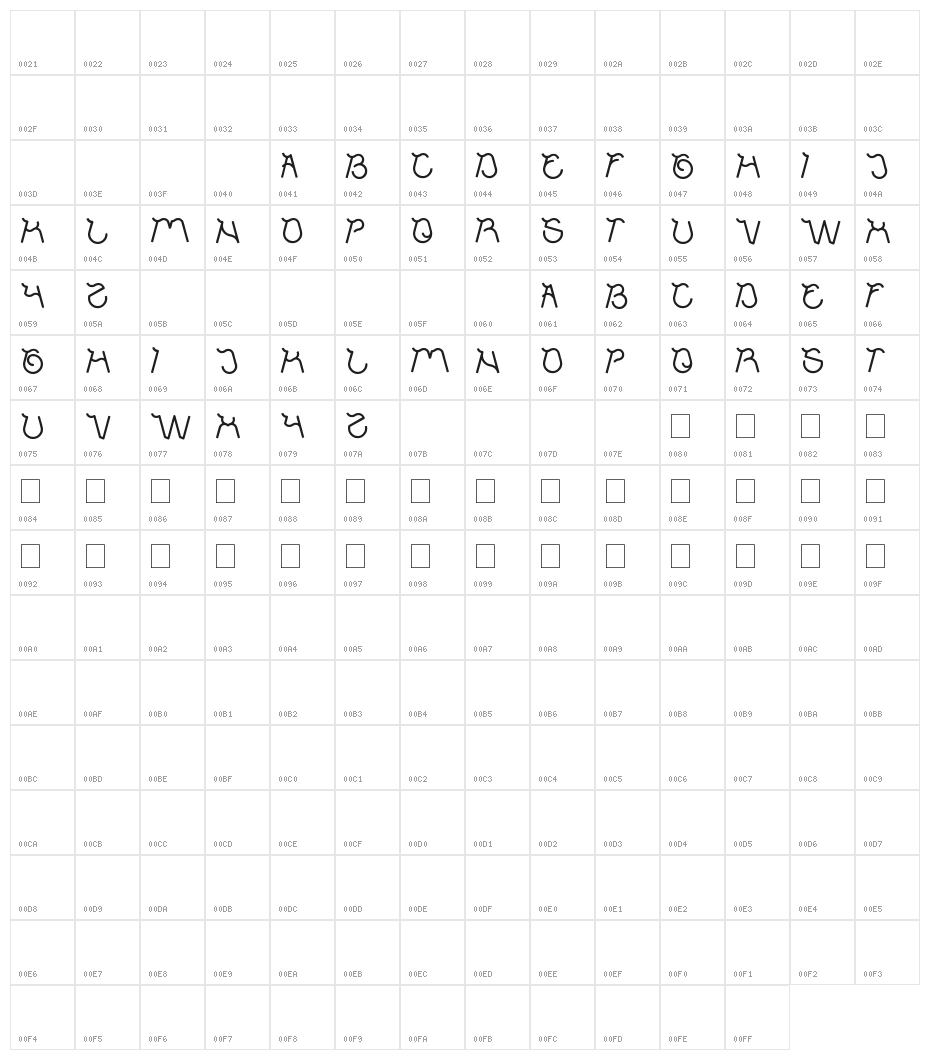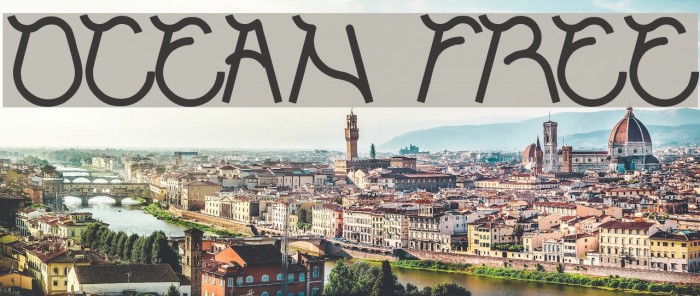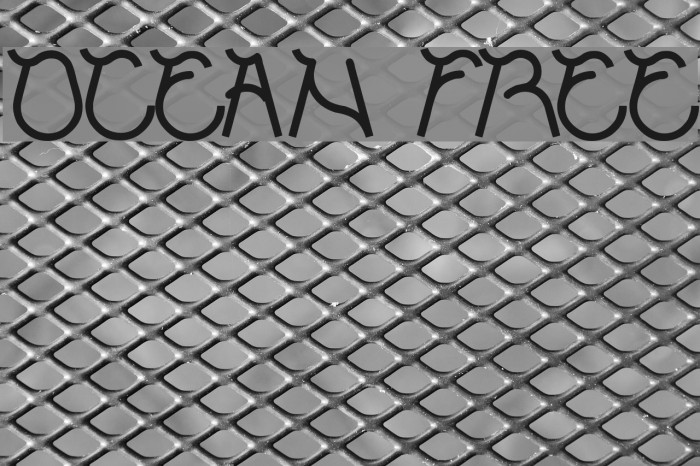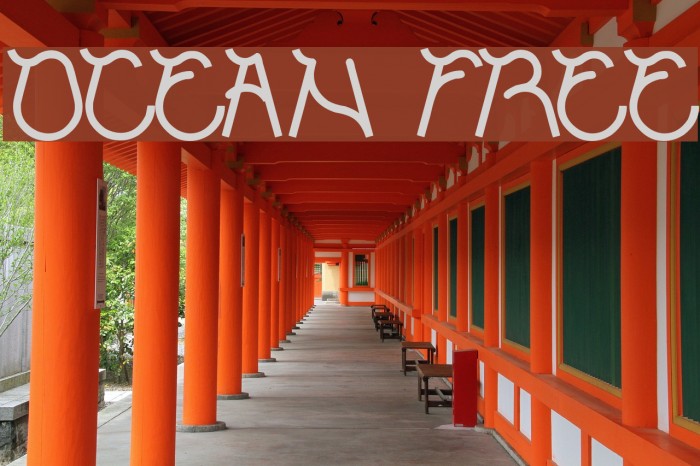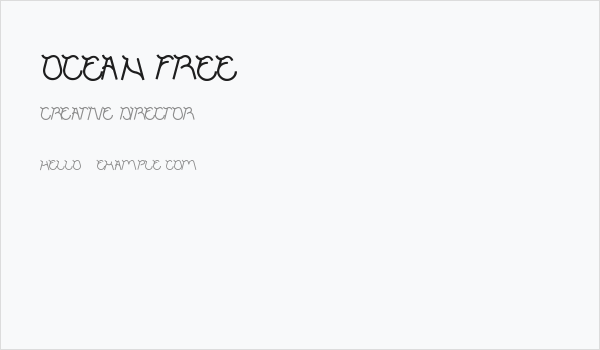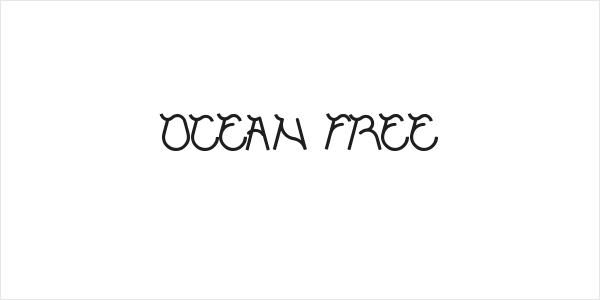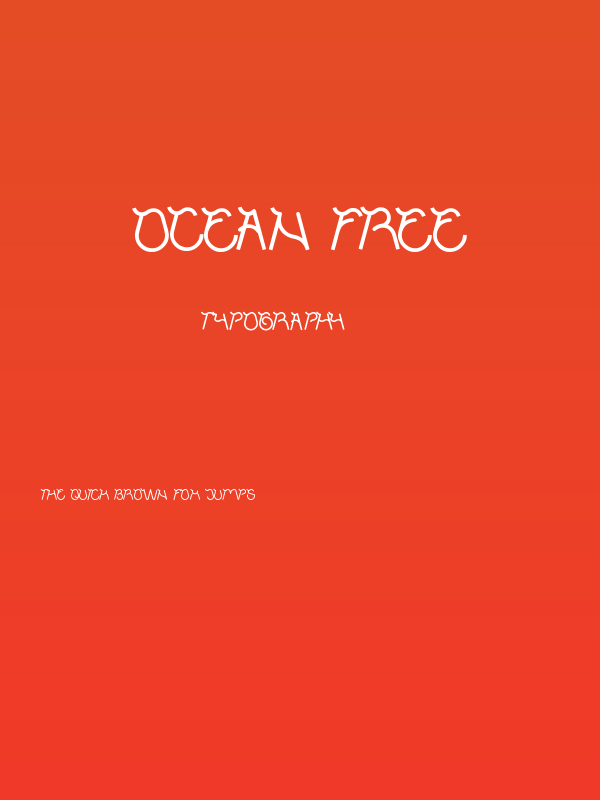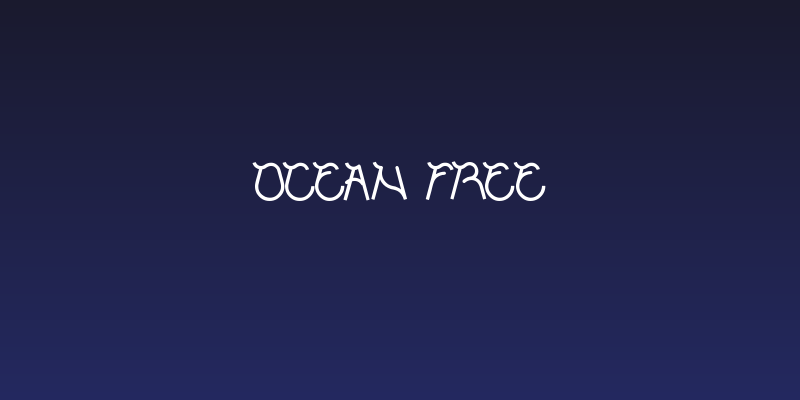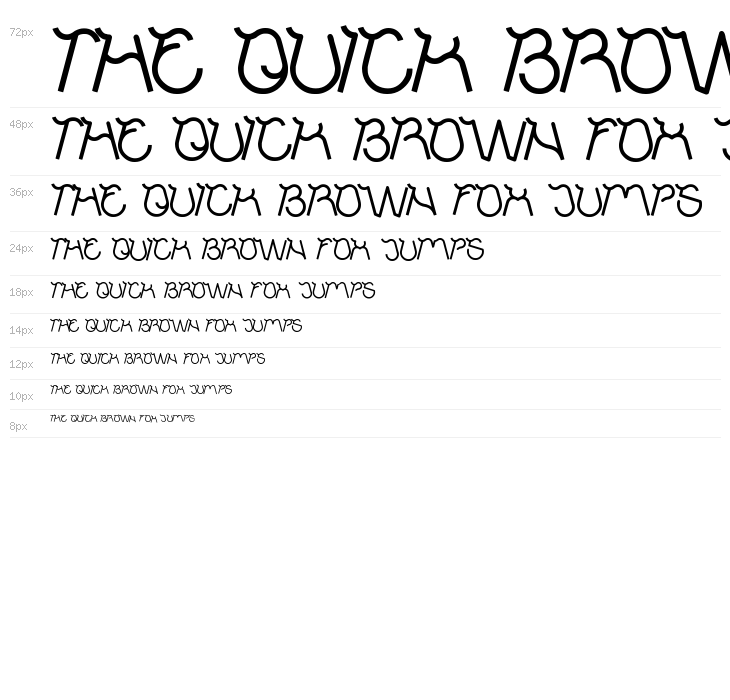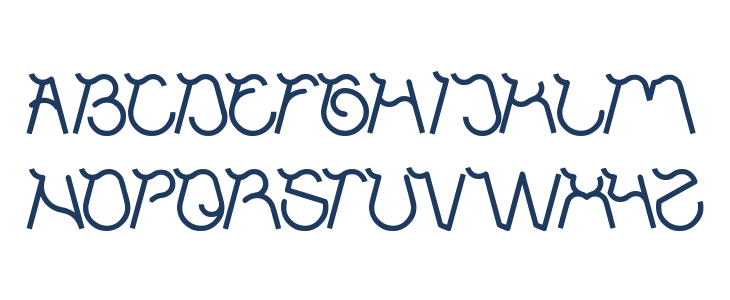
ocean free Font
ocean free Description
This font features a unique and artistic design with a whimsical flair. Each letter is crafted with a playful twist, incorporating curves and loops that give it a dynamic and flowing appearance. The strokes are bold and consistent, creating a strong visual impact. The overall design is reminiscent of ocean waves, with a sense of movement and fluidity. This font stands out with its decorative elements, making it ideal for creative projects that require a touch of elegance and originality.
| Use Case | Logos, Headlines, Artistic designs |
| Proposed Projects | Ideal for creative projects such as invitations, posters, branding, and artistic designs that require a unique and decorative touch. |